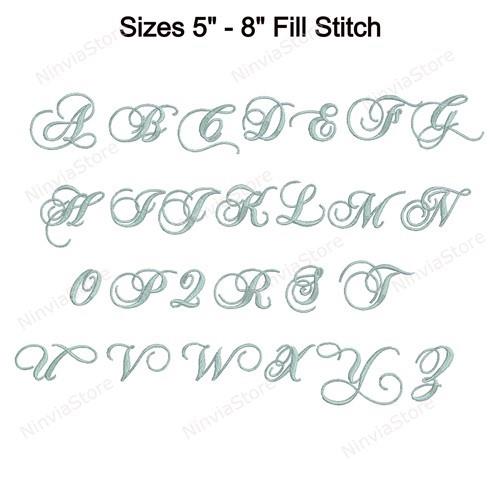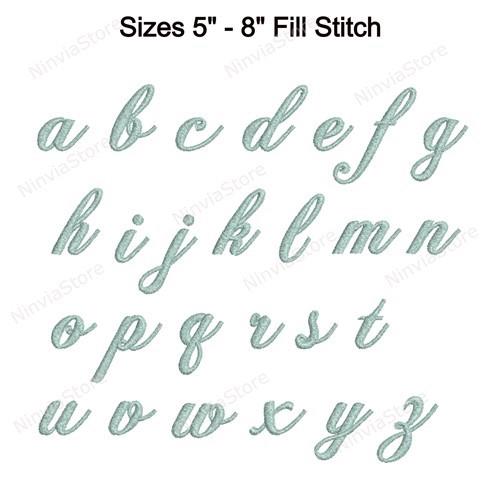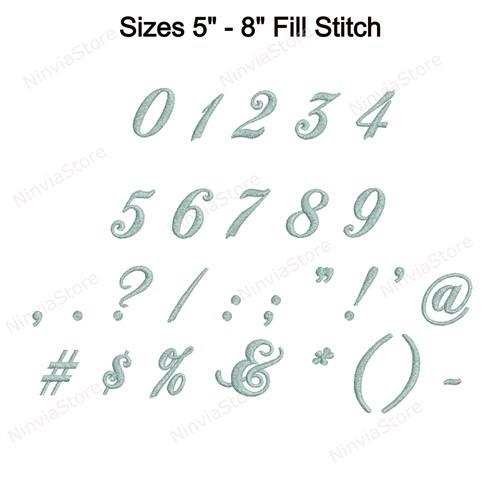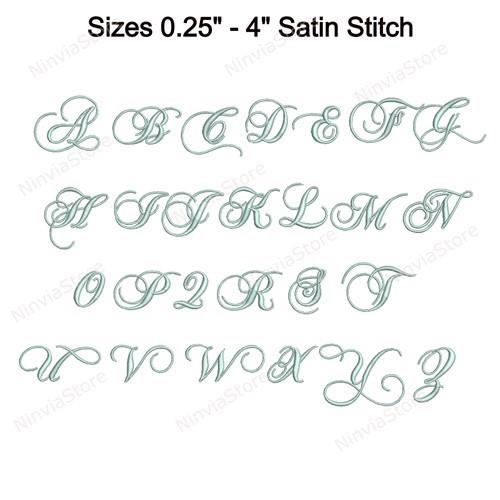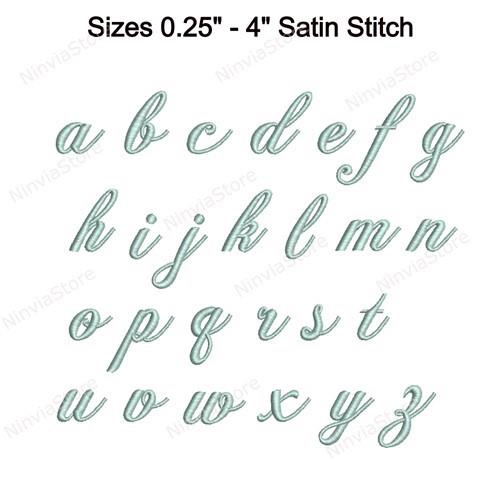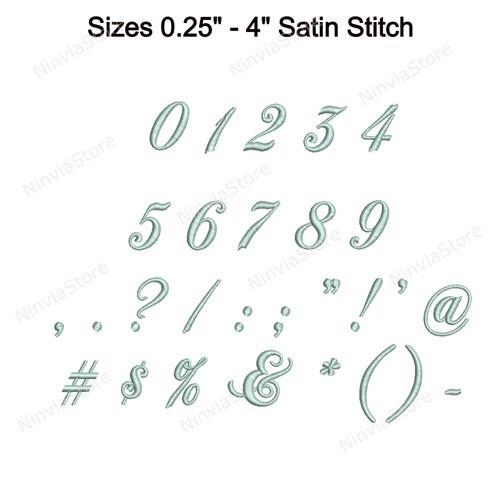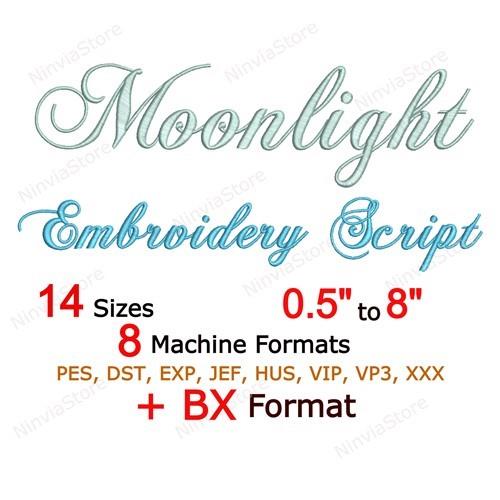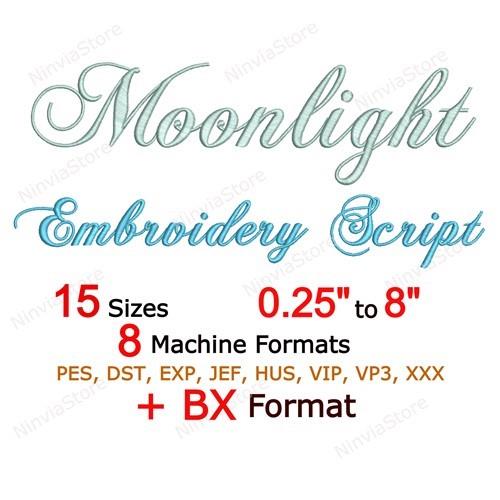
Maya Kreations is happy to present Moonlight Font machine embroidery font which has This script-style machine embroidery font features flowing curves in light blue, making it ideal for personalizing linens or home decor items. Available in DST, PES, and other machine formats. included. If you would like to view more embroidery fonts and alphabets please search our embroidery fonts page.